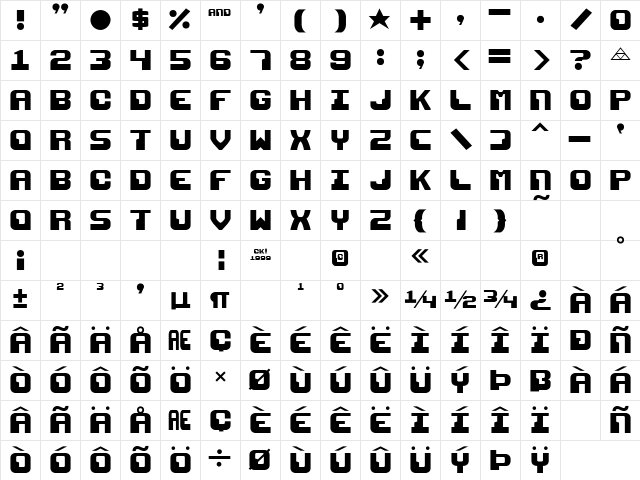
Razor 1911 Regular
Design Context for Razor 1911
Razor 1911 is a composed and adaptable typeface that performs quietly and consistently across a wide range of design contexts.